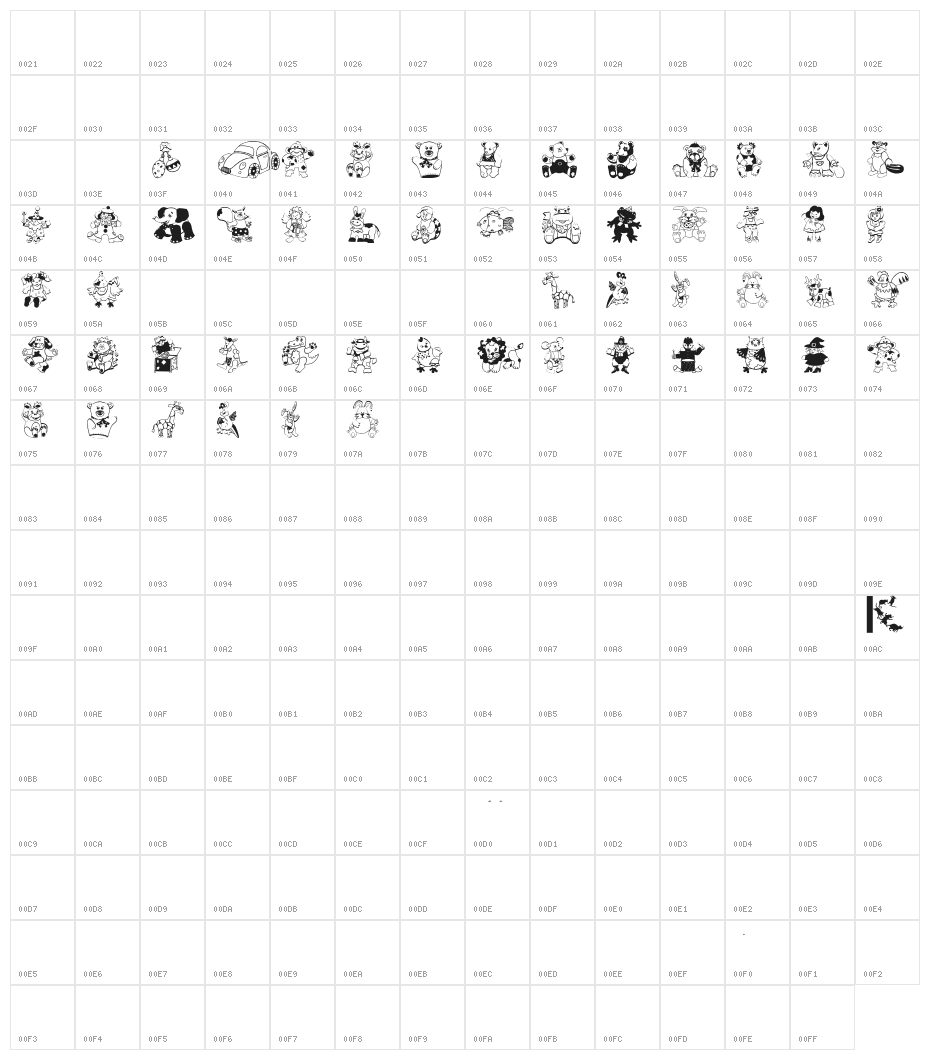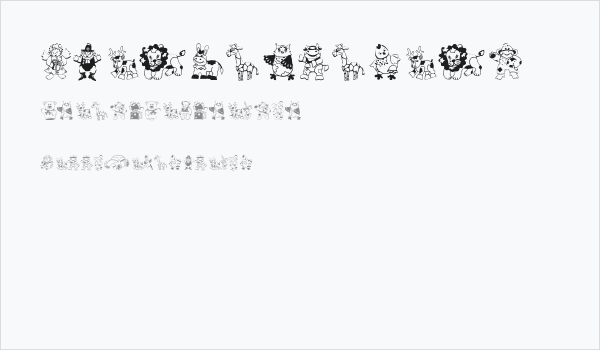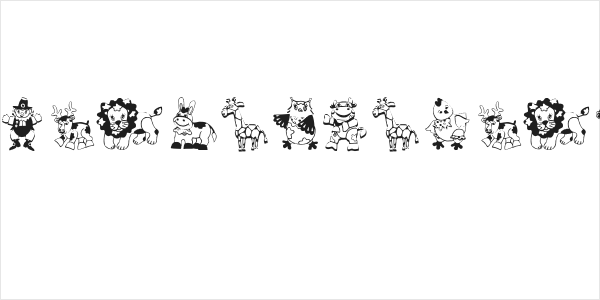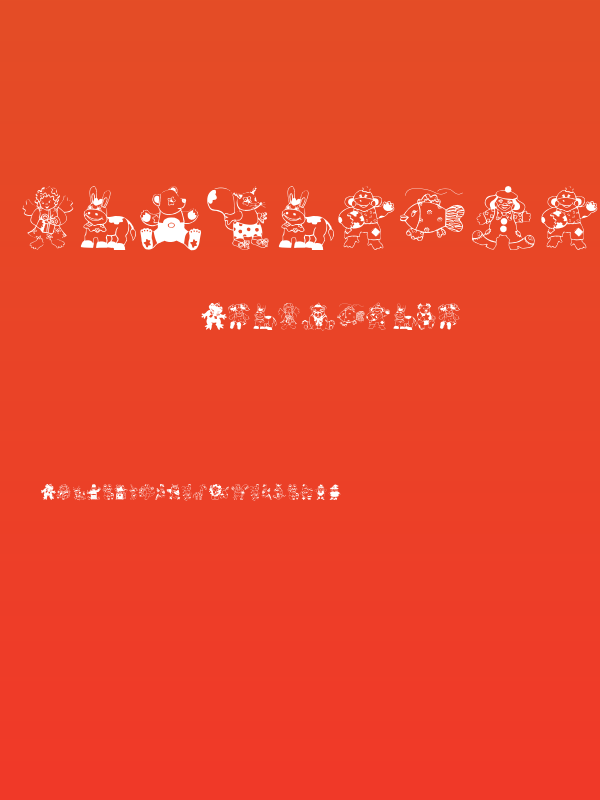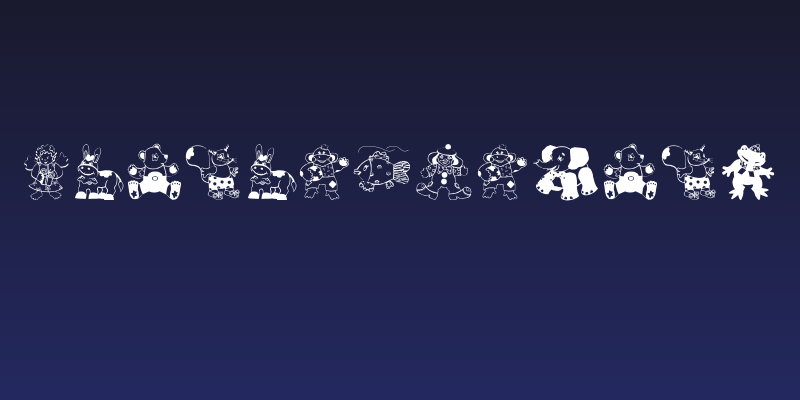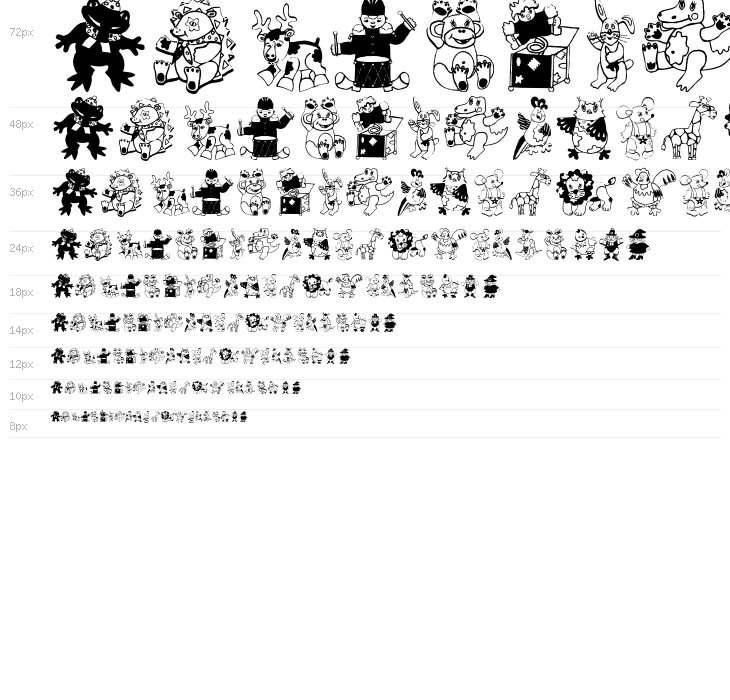
OpenParlament Font
OpenParlament Description
| Overall Style | Decorative, Playful, Whimsical |
| Use Case | Headlines, Logos, Posters, ChildrenΓ’β¬β’s content |
| Proposed Projects | ChildrenΓ’β¬β’s books, party invitations, educational materials, playful branding, greeting cards. |